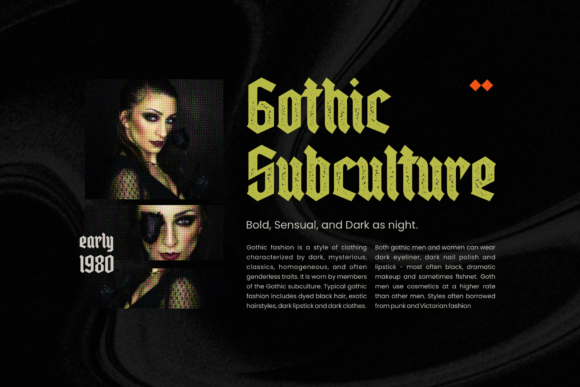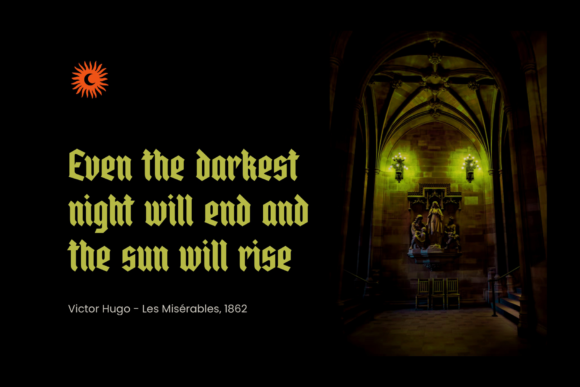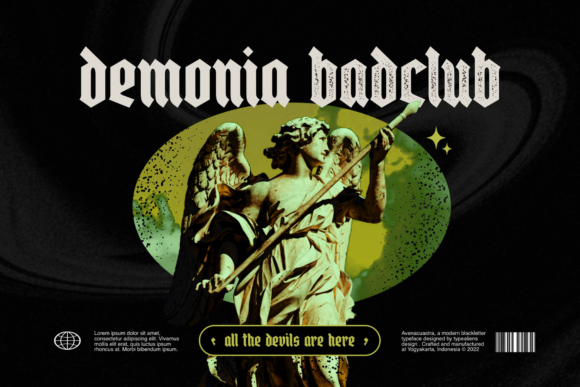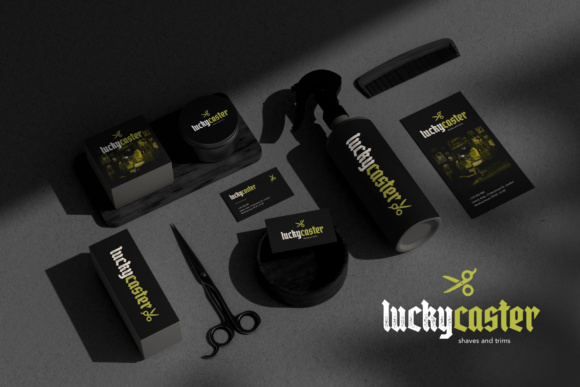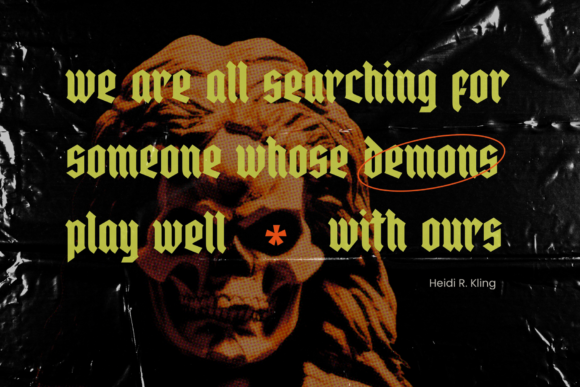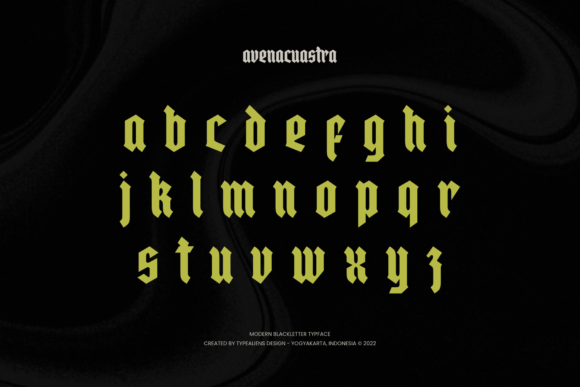
The Perfect Blend of Vintage Charm and Modern Design
As a designer, there’s nothing quite like the thrill of the creative process. You’re brainstorming ideas, sketching out concepts, and searching for the perfect font to bring your vision to life. And then, it happens – you stumble upon the perfect font, and your design takes on a whole new level of depth and authenticity. For many designers, that font is the Avenacuastra Font, a bold and authentic blackletter font that’s steeped in vintage charm.
Avenacuastra Font is designed to evoke the classic styles of the past, making it the perfect choice for designers looking to create retro-inspired designs that exude a sense of nostalgia and sophistication. Whether you’re working on a liquor branding project, designing a studio tattoo logo, or creating a classic motorcycle aesthetic, Avenacuastra Font is sure to deliver.
With its bold lines and authentic flair, Avenacuastra Font is a valuable addition to any designer’s toolkit. Its versatility and timeless appeal make it a must-have for designers who want to create designs that truly stand out from the crowd.
Avenacuastra Font Key Features
- Unique Characteristics: The font features a unique blend of modern and classic elements, with a focus on clean lines, geometric shapes, and subtle flair.
Avenacuastra Font Review
Overall, I think Avenacuastra Font is a unique and interesting font that can add a touch of elegance to certain designs. Here are some things that work well:
- ✨ Distinctive style: Avenacuastra Font has a distinctive, hand-drawn feel that sets it apart from more common fonts.
- ✨ Versatility: It can be used for a variety of projects, from title fonts to body text.
- ✨ Good legibility: While it’s not as clear as some other fonts, Avenacuastra Font is still easy to read, especially at larger sizes.
- ⚠️ Limited font size range: Avenacuastra Font can become difficult to read at very small or very large sizes.
- ⚠️ Not ideal for large blocks of text: Due to its distinctive style, Avenacuastra Font may not be the best choice for large blocks of text.
In general, I think Avenacuastra Font is a great choice for designers who want to add a touch of personality to their designs. Just be mindful of its limitations, and use it thoughtfully.
Avenacuastra Font is ideal for:
– Creative typography
– Elegant titles and headings
– Sophisticated presentations and documents
– Branding and identity design